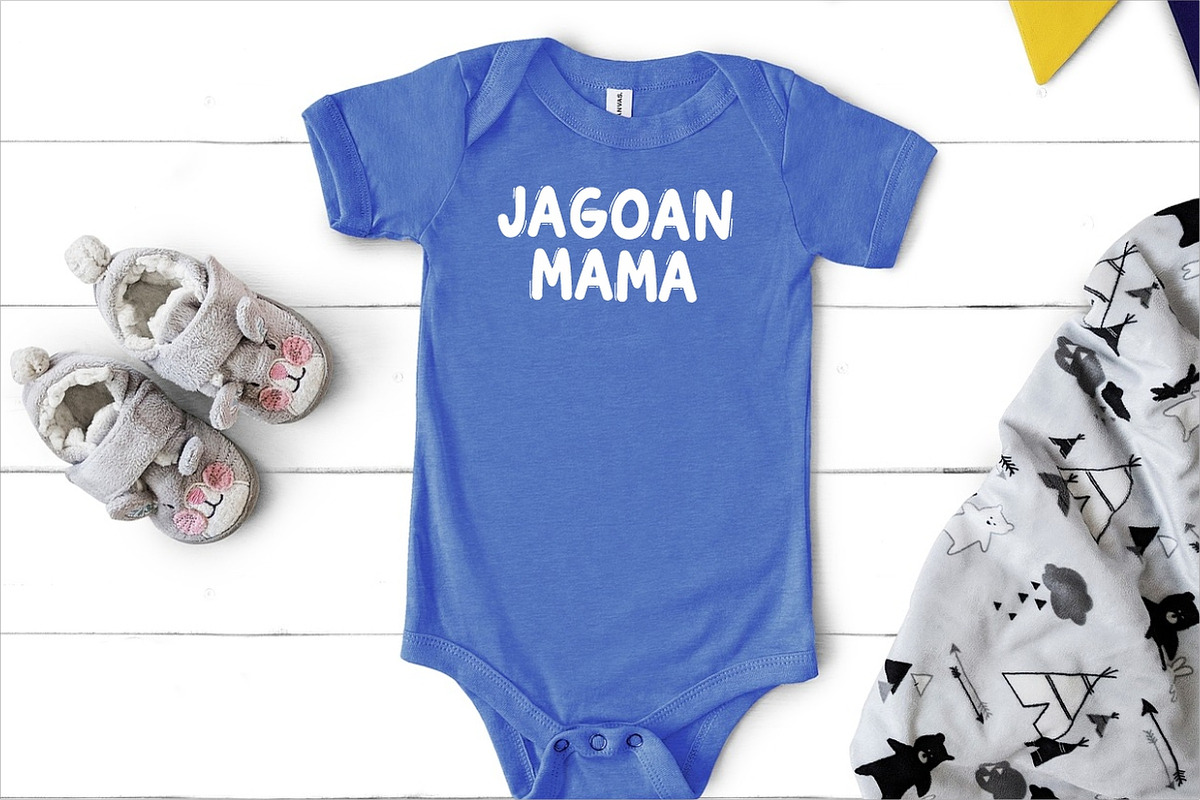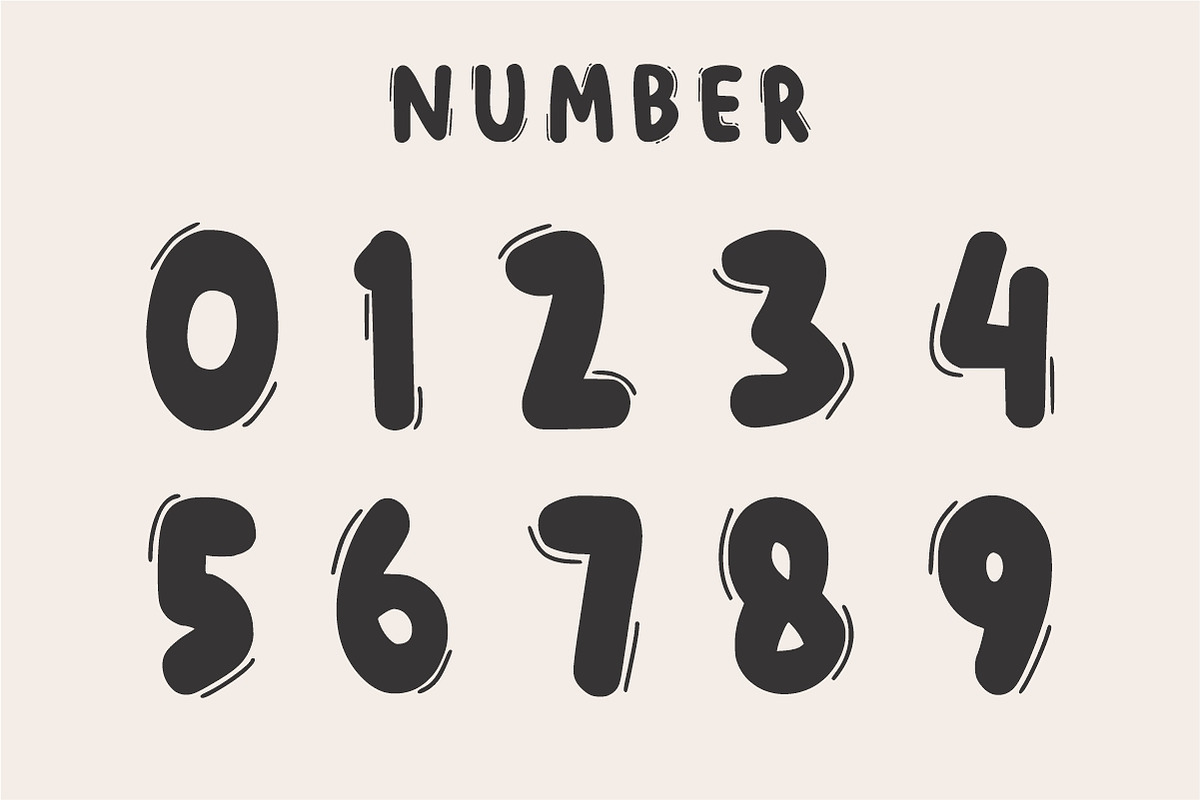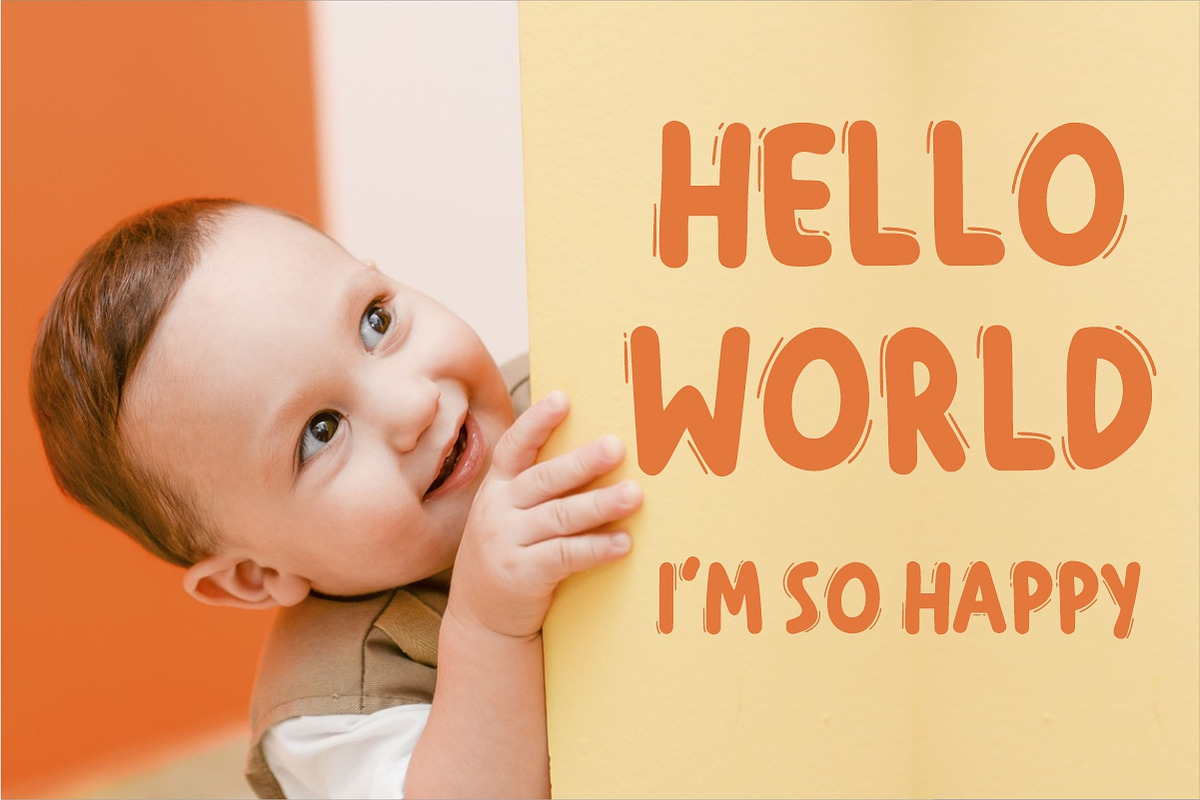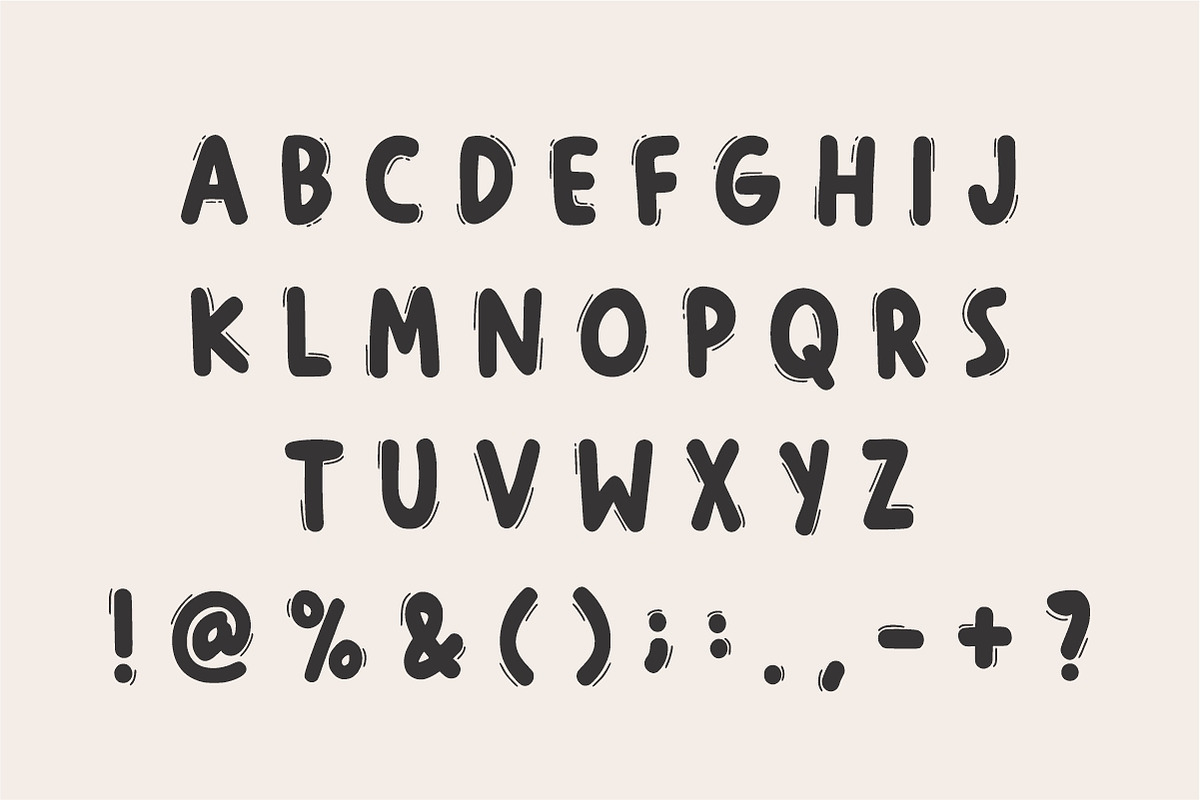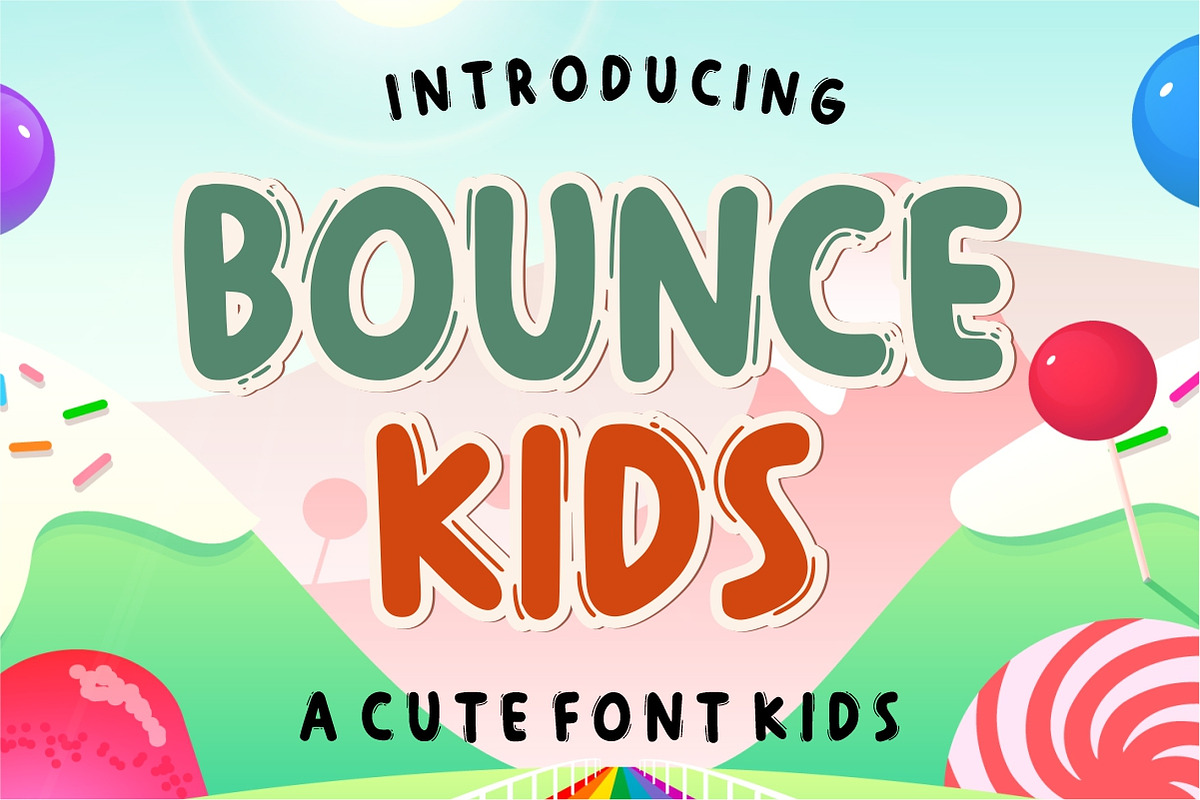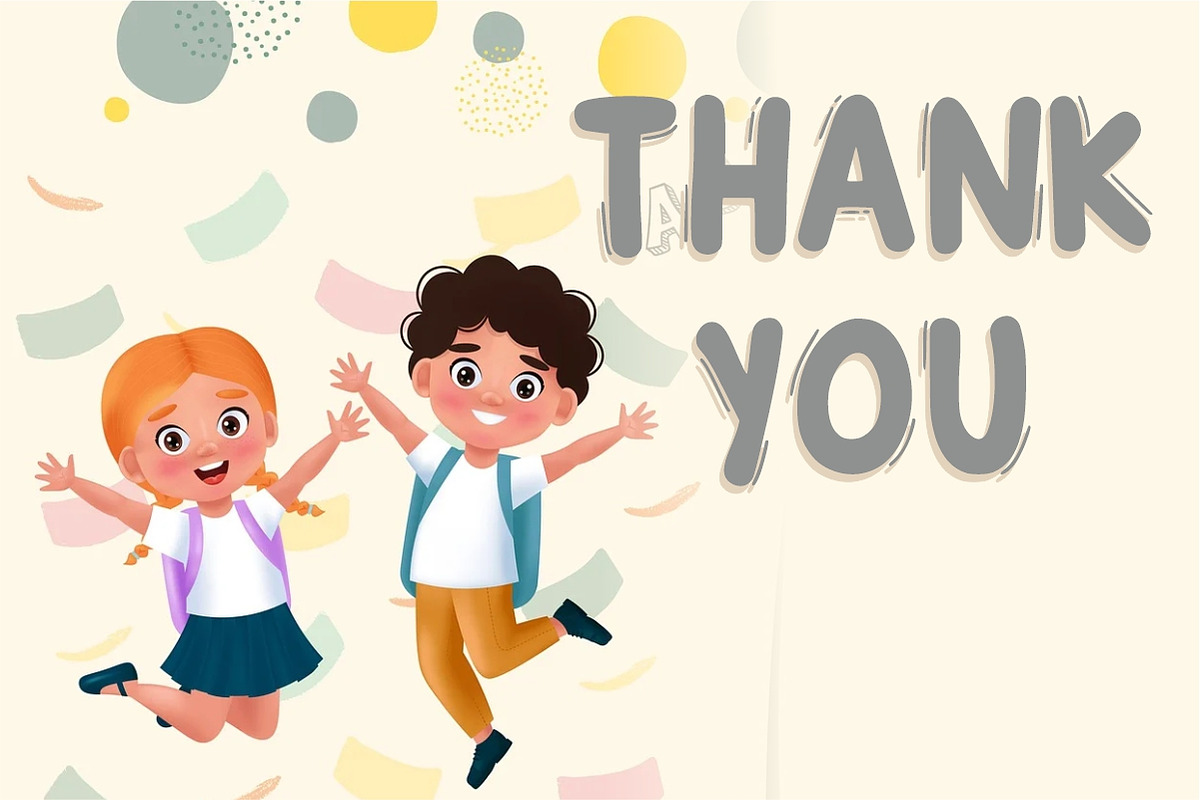
Bounce Kids
Bounce Kids is a cute display font, This beautiful font for kids can be used in many graphic designs for children:
fonts for children's book alphabet cards kids t-shirts kids party posters kids labels for school kids name tags etc.